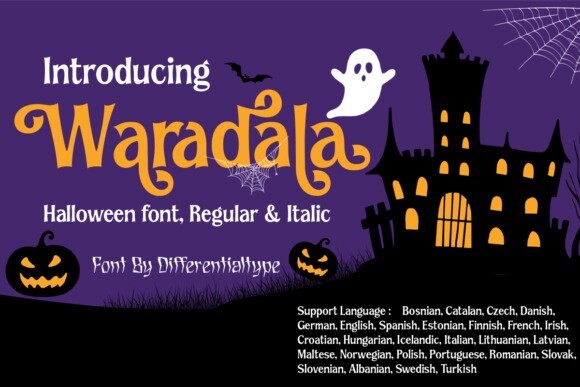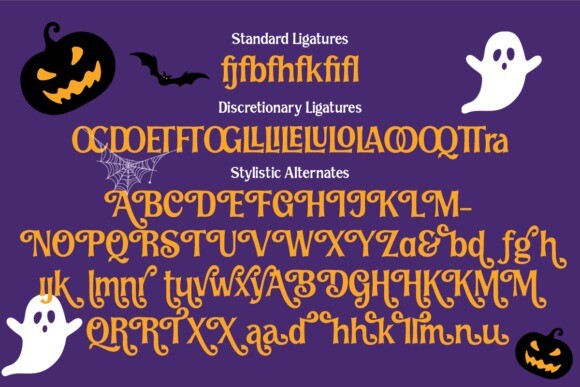
Waradala Font
Waradala Font is a Halloween display font. Perfect for any of your October craft ideas.
Which will make your design look mysterious, horror and spooky. Add it to your font library, and it will enhance your creativity!